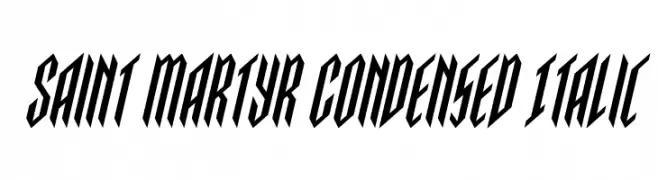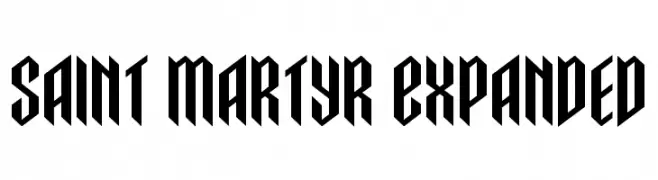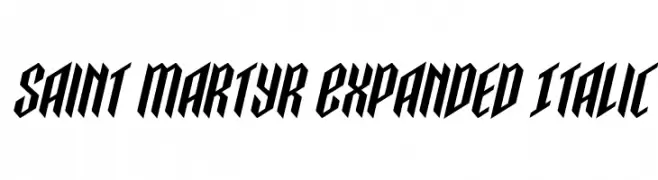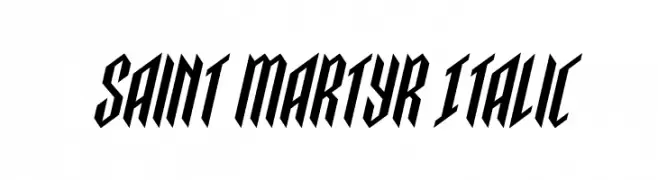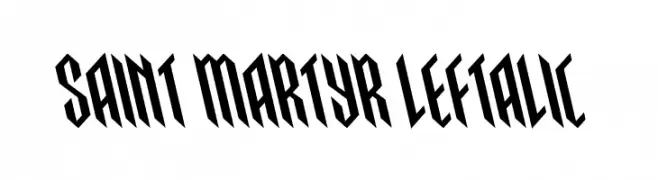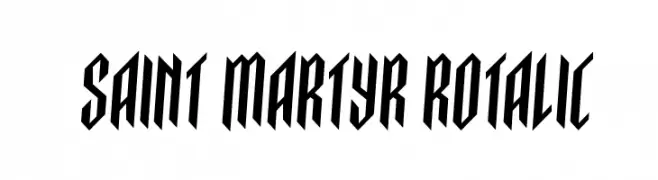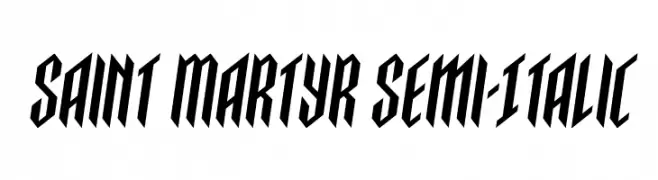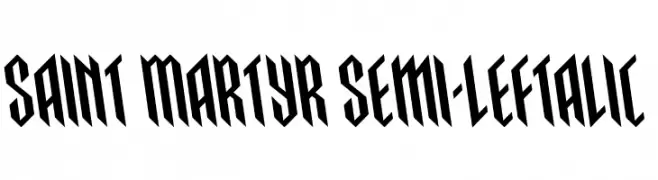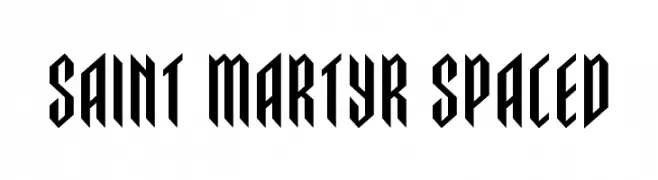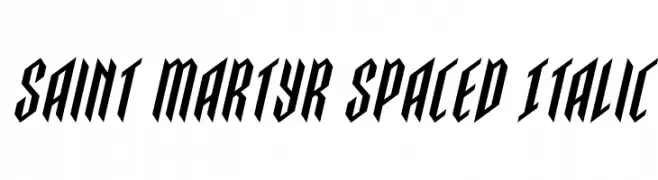
A bold, condensed, and italic font with sharp angles and a modern style.
A bold, angular Gothic-inspired font with expanded width and sharp edges.
A bold, italic, and expanded font with high contrast and geometric style.
A bold, italic font with sharp angles and a modern, dynamic style.
A bold, angular font with a leftward slant and high contrast strokes.
A bold, angular font with a dynamic slant and geometric forms.
A bold, slanted font with sharp angles and thick strokes for a dynamic look.
A bold, angular font with a leftward slant and high contrast strokes.
A bold, angular blackletter-inspired font with a modern geometric twist.
A bold, italicized font with sharp angles and a dynamic slant.